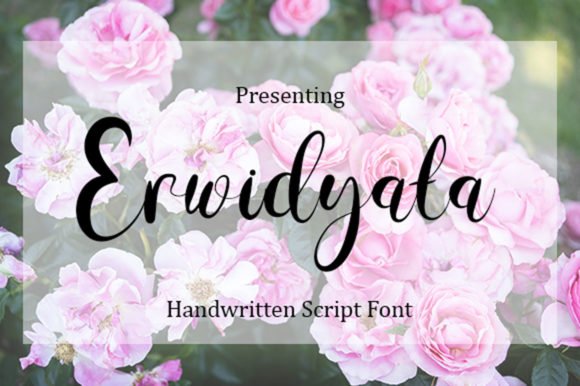
The Perfect Handwritten Touch
Have you ever stared at a blank page, waiting for inspiration to strike? For designers, this moment is all too familiar. The pressure to create something unique and captivating can be overwhelming, but what if the solution lies in the smallest of details? A well-crafted font can make all the difference in elevating your design from ordinary to extraordinary.
Enter the Erwidyata Font, a beautiful, handwritten font designed specifically for packaging products, invitation cards, and other design elements that require a high-quality, personalized touch. With its unique graphics, characters, and kerning, this font is a valuable asset for designers looking to add a touch of elegance and sophistication to their work.
Whether you’re a seasoned designer or just starting out, the Erwidyata Font is an essential tool to have in your arsenal. Its versatility and high-quality design make it a must-have for any project that requires a handwritten touch.
Erwidyata Font Key Features
- Font Family: Erwidyata Font is a typeface that includes multiple styles such as Regular, Bold, Italic, and Bold Italic.
- Character Set: Supports a wide range of languages, including Latin, Cyrillic, and Devanagari scripts, making it suitable for multilingual projects.
- Unique Characteristics: Erwidyata Font features a unique blend of modern and traditional elements, with a distinctive aesthetic that sets it apart from other typefaces.
Erwidyata Font Review
At first glance, Erwidyata Font catches my eye with its unique and quirky design. It’s a script font that’s perfect for adding a touch of personality to your designs. ✨ I love how the font has a handwritten feel to it, making it ideal for headings, titles, or even logos.
- ✨ Unique and creative design that sets it apart from other fonts
- ✨ Perfect for adding a personal touch to your designs
- ✨ Works well for headings, titles, or logos
- ⚠️ May not be suitable for large blocks of text due to its script nature
- ⚠️ Can be difficult to read for those with vision impairments
- ⚠️ Limited language support, which may limit its use in multilingual designs
Overall, I think Erwidyata Font is a great addition to any designer’s toolkit. While it may have some limitations, its unique design and versatility make it a great choice for the right projects. If you’re looking to add a touch of personality to your designs, Erwidyata Font is definitely worth considering.
To get the most out of the Erwidyata Font, use it for:
- Cultural or traditional designs.
- Artistic or creative projects.
- Business cards or branding materials.